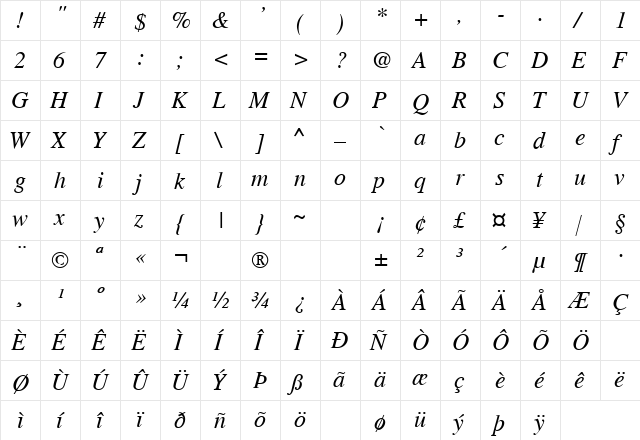
Brain Damage 1 Italic
Design Context for Brain Damage 1 Typeface
Brain Damage 1 is a composed and adaptable typeface that performs quietly and consistently across a wide range of design contexts. The slanted form adds forward momentum and visual energy.
Pro Tip: Try Brain Damage 1 for annotation and caption copy alongside an upright companion — the contrast in angle creates a dynamic but ordered typographic system.